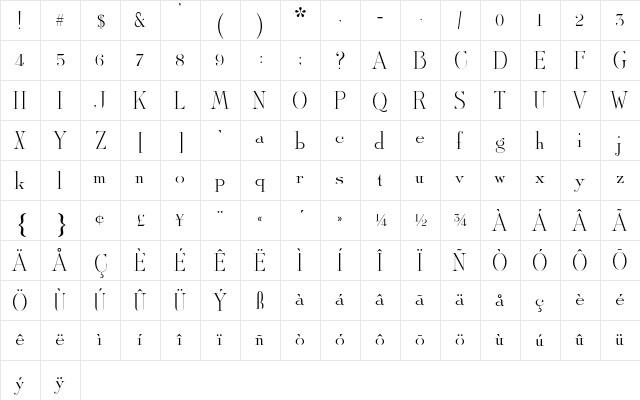
Sackers Antique Roman Solid AT Regular
Design Context for Sackers Antique Roman Solid AT Typeface
Sackers Antique Roman Solid AT has the warm character of retro typography — evoking diners, record sleeves, and the golden age of print advertising.
Font Pairing: Combine Sackers Antique Roman Solid AT with a simple slab or neutral sans — period-accurate companions reinforce the vintage feel without competing for attention.
Pro Tip: Lean into Sackers Antique Roman Solid AT's period character by pairing it with aged paper textures, muted colour palettes, and vintage illustration styles.